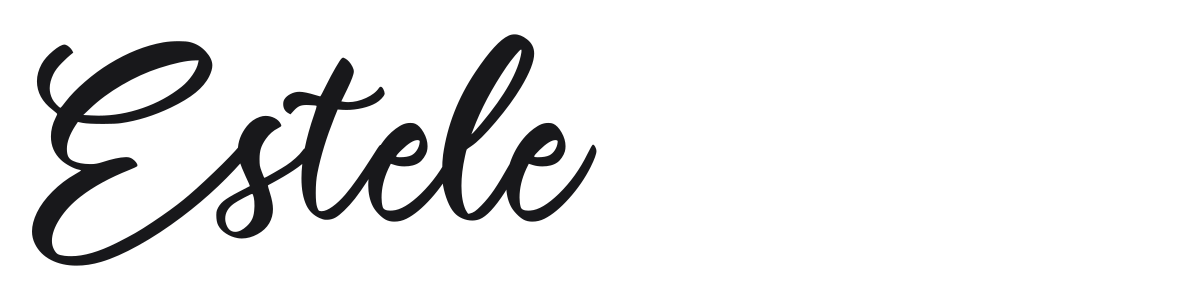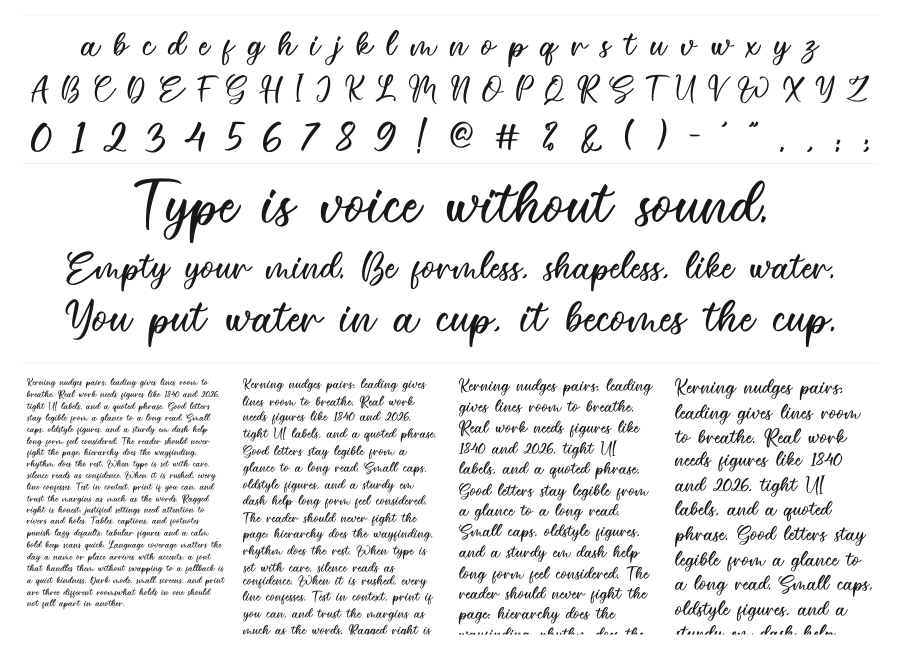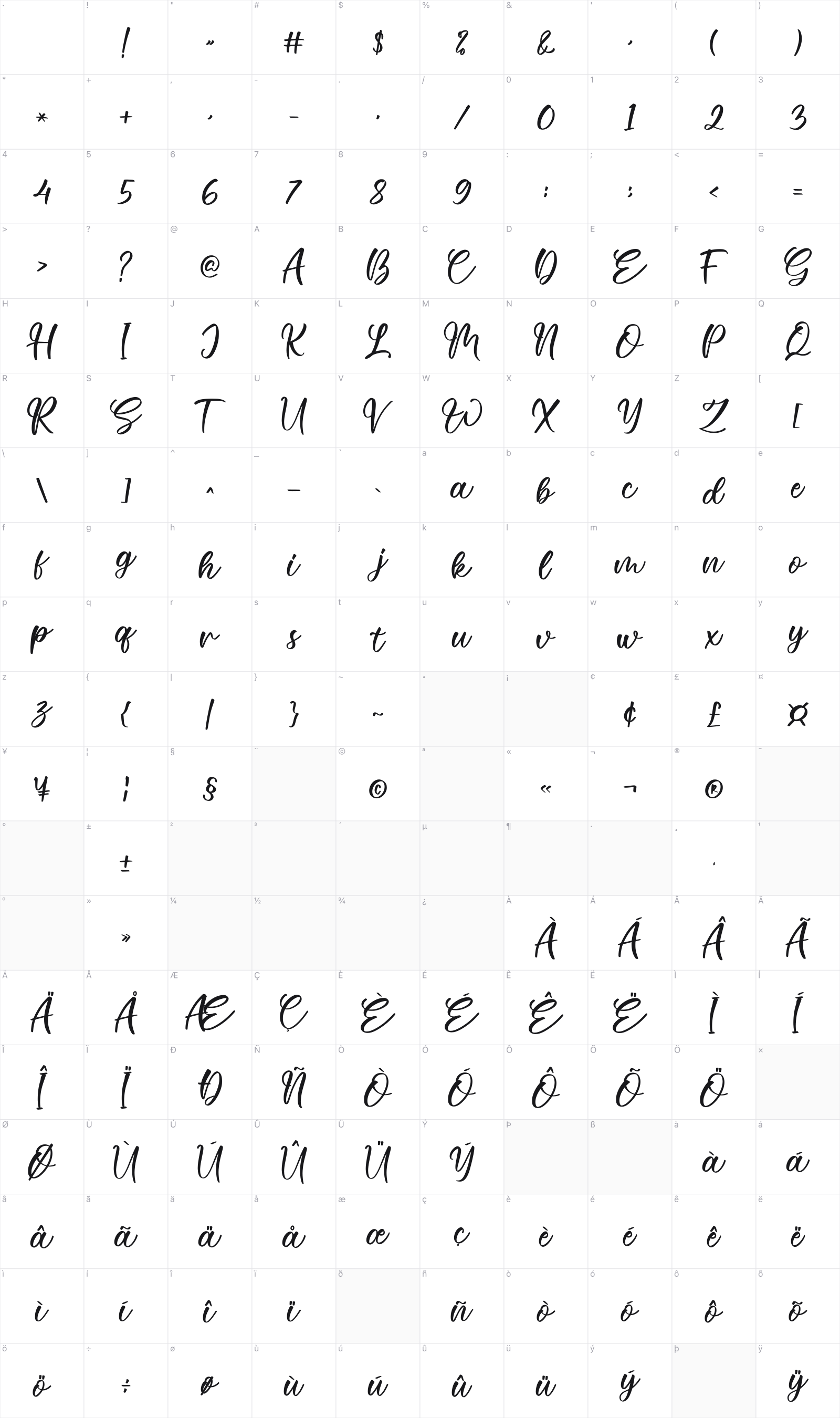
Estele
Estele is a contemporary bold brush script with sweeping connected strokes and a confident hand-lettered feel. Long ascenders and descenders give it rhythm and presence, while the high contrast between thick and thin strokes adds a calligraphic polish. It reads warm and romantic at headline sizes, making it a natural choice for branding, packaging, and event design.